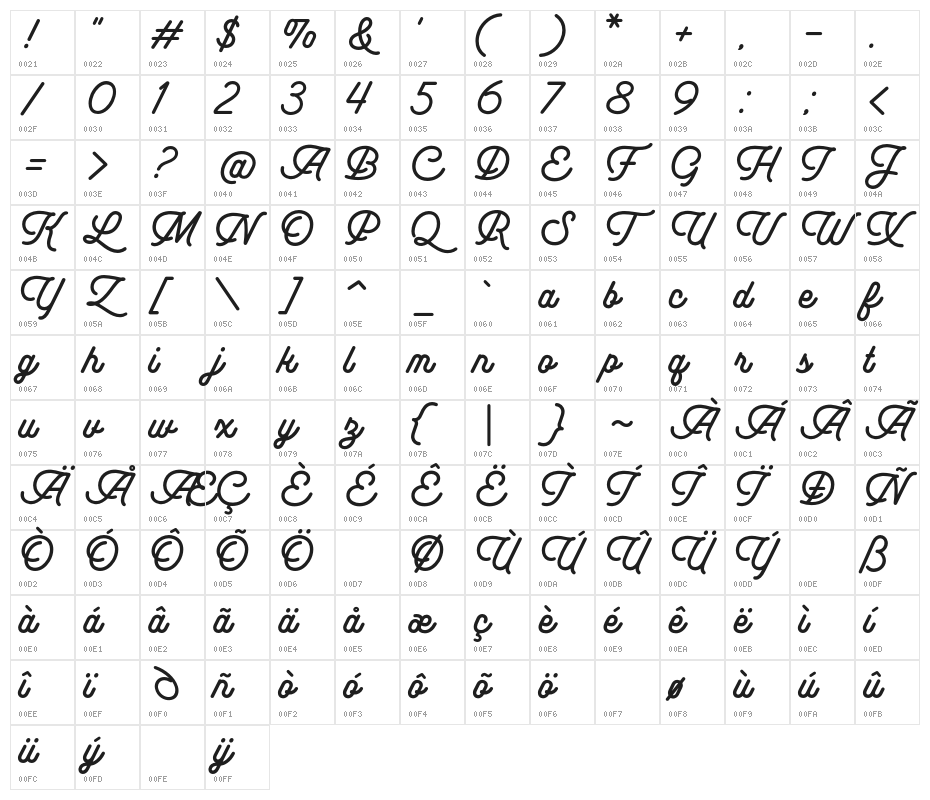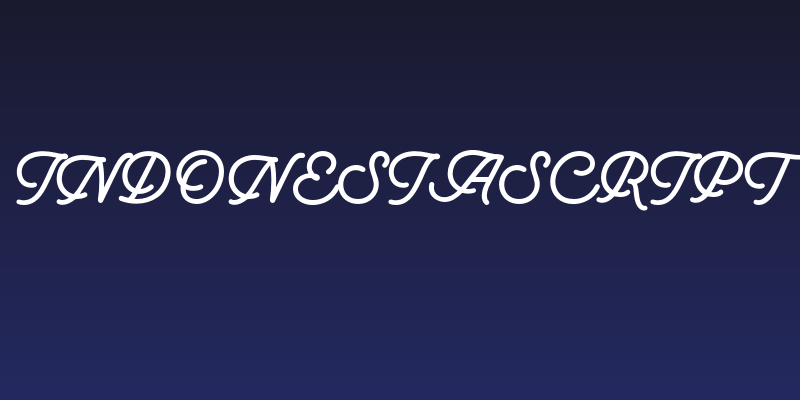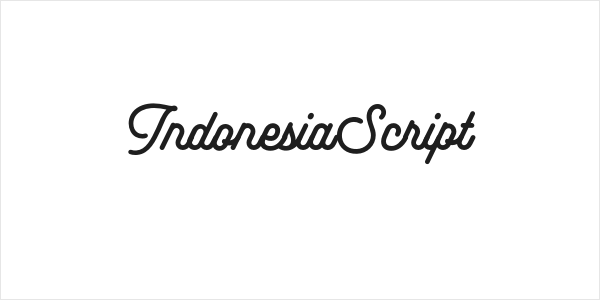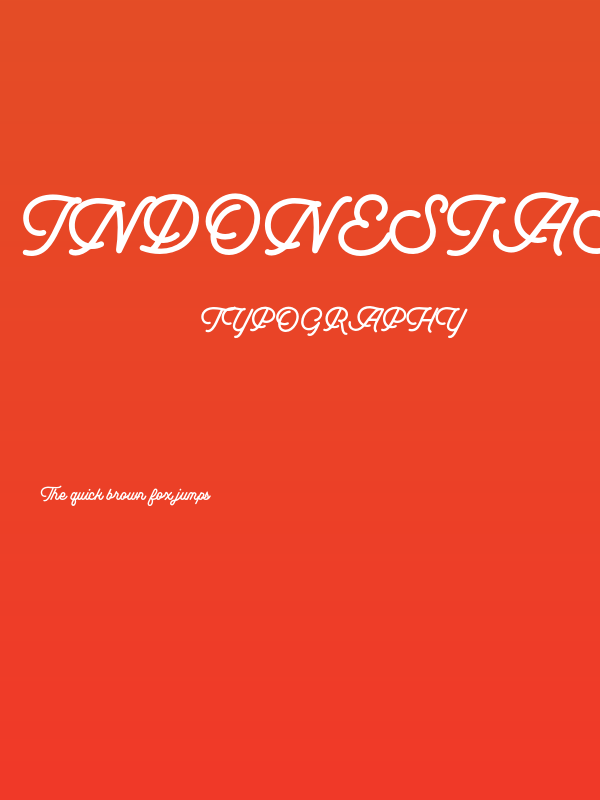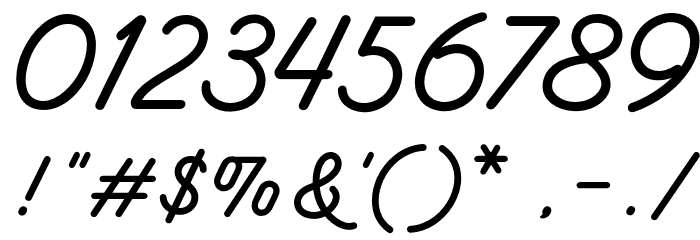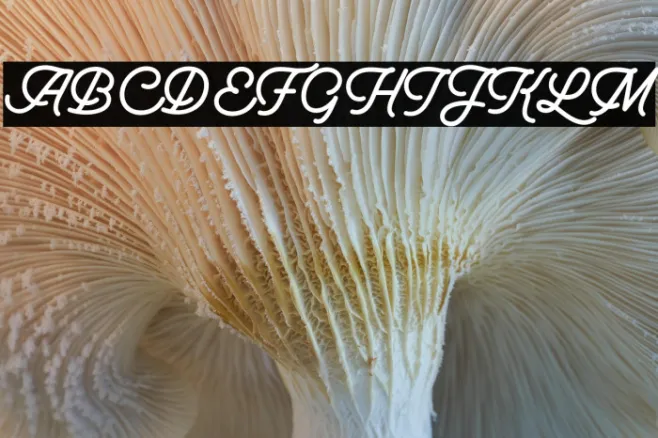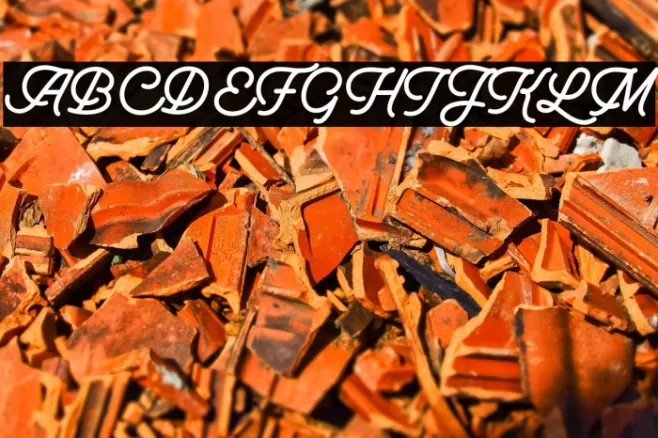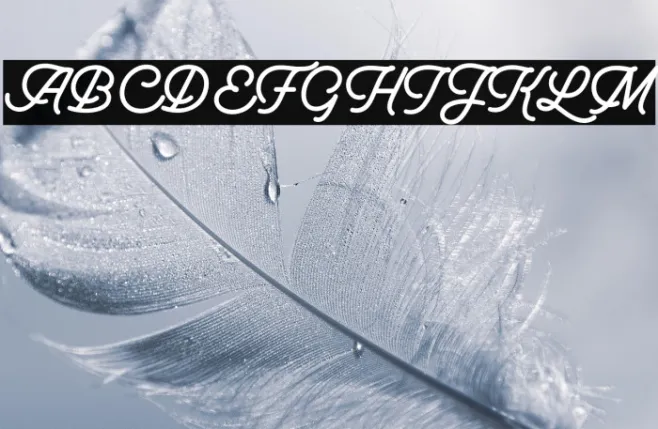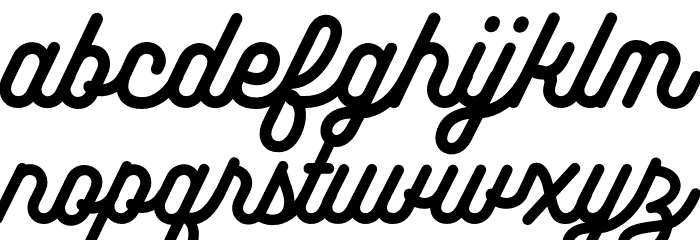
IndonesiaScript Font
IndonesiaScript Description
This font features a flowing, cursive style that mimics elegant handwriting. The uppercase letters are slightly more ornate, with graceful loops and curves, while the lowercase letters maintain a consistent, smooth flow. The numerals and special characters are designed to complement the script, maintaining the same fluidity and charm. The overall appearance is both sophisticated and approachable, making it suitable for a variety of creative applications.